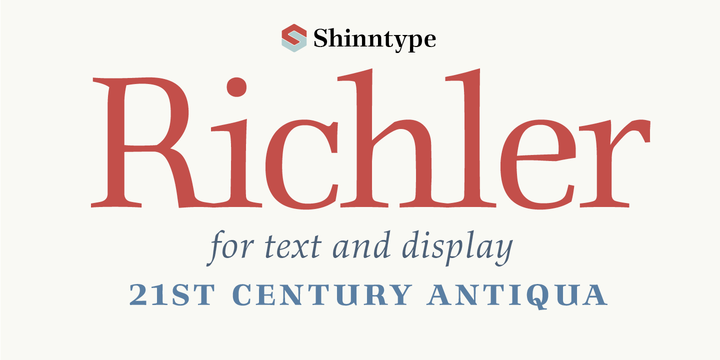
Richler
Richler  is a beautiful open, evenly spaced book face. It was originally designed keeping in mind compatibility with quality headlines and enhanced readability in text. Download richler font Richler font detail Foundry: Nick Shinn Publisher: ShinnType Released: May 8, 2013 Price: $19.33